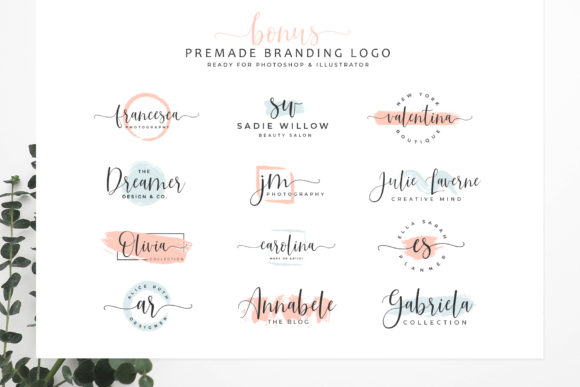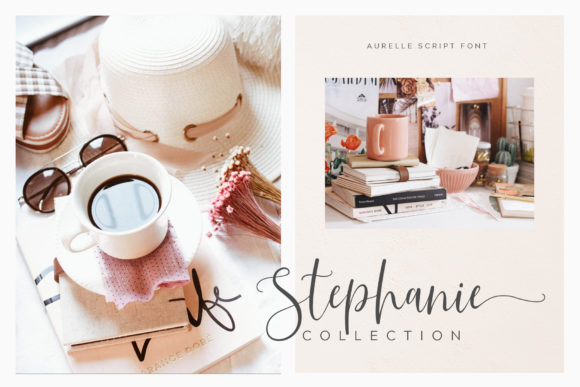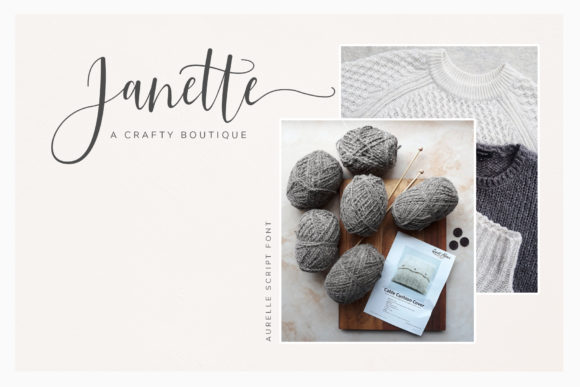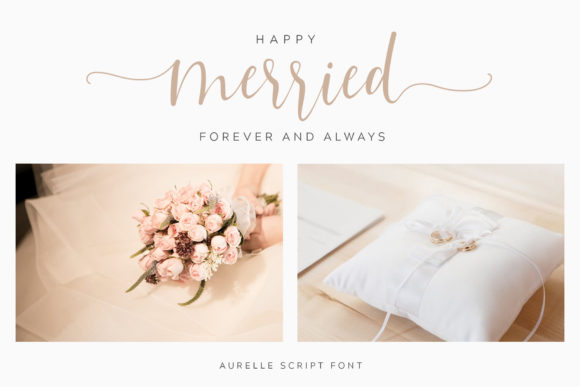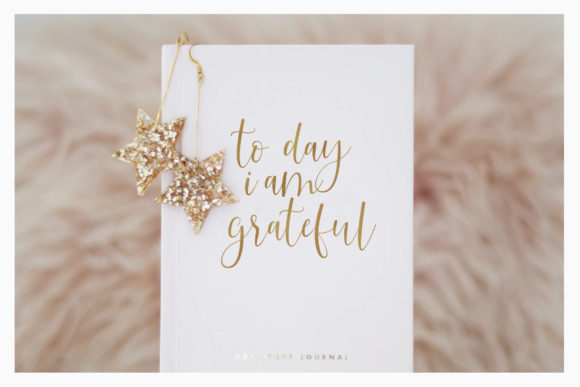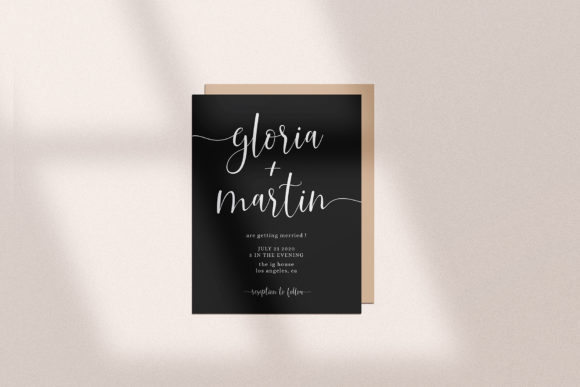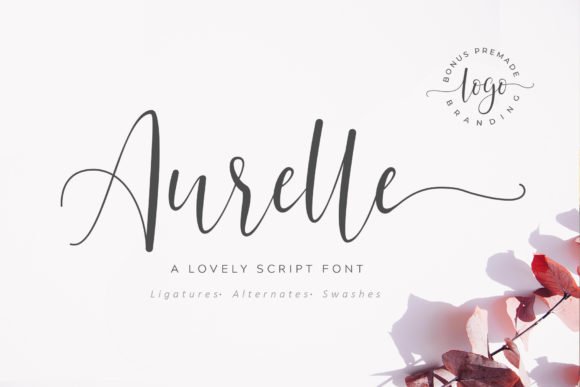
A Touch of Whimsy: Elevate Your Designs with the Aurelle Font
Have you ever been working on a project and suddenly, a burst of creativity hits you? You envision a beautiful, flowing script that perfectly captures the essence of your design. For many designers, this moment is a dream come true. And, with the right tools, it can become a reality. That’s where the Aurelle Font comes in – a stunning script font that adds instant flair to any design.
Aurelle Font is more than just a pretty face; it’s a valuable asset for designers looking to create unique and captivating designs. With its lovely flowing curves, this font is perfect for adding a touch of whimsy to your projects. Whether you’re designing a wedding invitation, a branding package, or a beautiful piece of artwork, Aurelle Font is sure to impress. Its versatility and elegance make it a must-have for any designer looking to elevate their work.
Aurelle Font Key Features
- Unique Characteristics: Aurelle Font features a unique blend of modern and elegant script lettering, making it suitable for a wide range of design applications.
- Font Style: Aurelle Font is available in both regular and bold styles, providing designers with flexibility and options for creating visually appealing designs.
Aurelle Font Review
Aurelle Font, designed by Ralf Herrmann, is an elegant script font that’s sure to captivate your audience. Here’s my honest review.
- Highly legible: Aurelle Font is designed for optimal readability, making it perfect for lengthy texts or articles.
- Customizable: With its wide range of weights, from Light to Heavy, you can tailor the font to suit your design needs.
- Flattering connections: The connections between letters are smooth and well-designed, making the font look professional and refined.
- Wide compatibility: Aurelle Font supports most languages, including Latin-based scripts and Cyrillic.
- No dramatic flair: While Aurelle Font is elegant, it may not be the best choice for bold or dramatic headings.
- Limited expressiveness: The font’s simplicity may make it less expressive or emotive than other script fonts.
- May not work for very small sizes: Due to its script nature, Aurelle Font may become difficult to read at very small font sizes.
Aurelle Font is a solid choice for any project that requires a clean, elegant script font. While it may not be the most exciting or expressive font, its high legibility and customization options make it a reliable choice for designers.
The Aurelle font is ideal for:
- Event marketing materials
- Personalized gift tags and cards